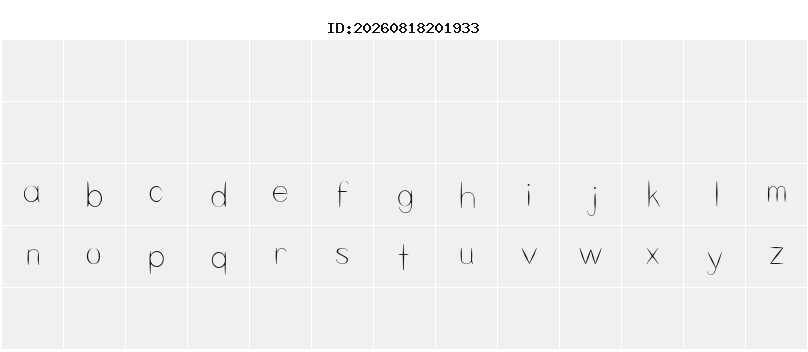
Skeleton Key Preview
• Font Name: Skeleton Key
• Full Font Name: Skeleton Key Regular
• Character Count: 26
• Designer: Lindsay Calhoun
• Manufacturer: Lindsay Calhoun
About Skeleton Key.ttf
Skeleton Key.ttf is a modern, elegant sans-serif font designed for ultimate readability and visual harmony. Perfect for branding, headlines, web design, and print materials.